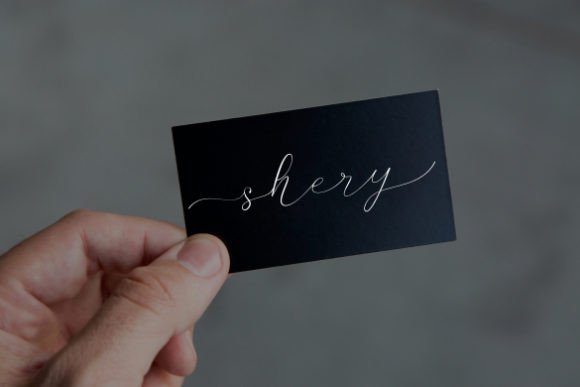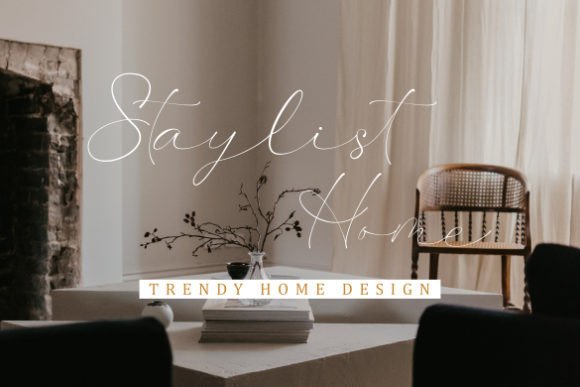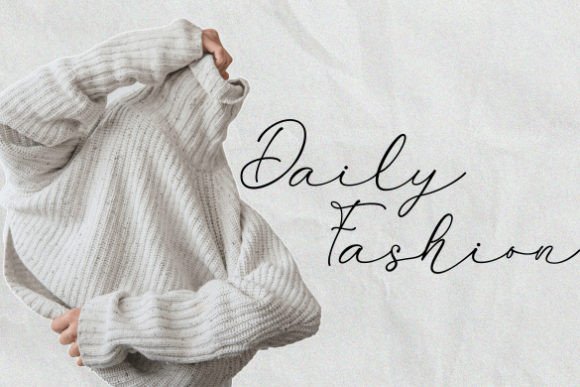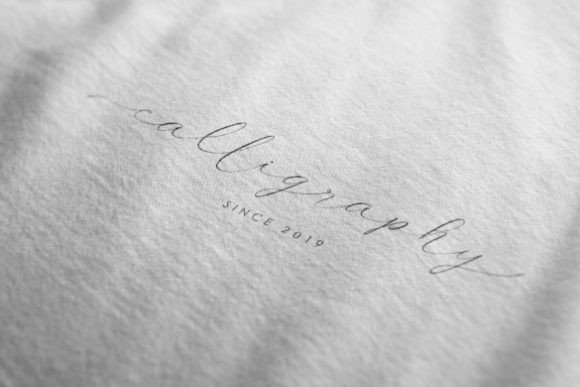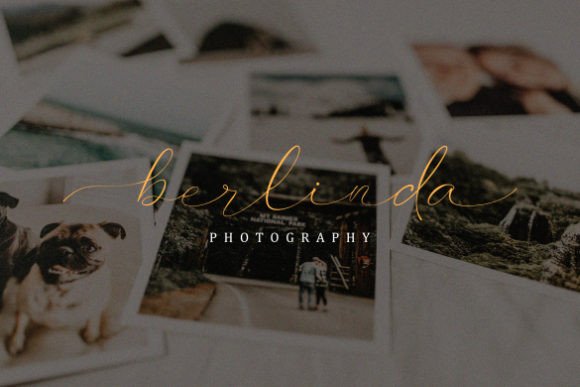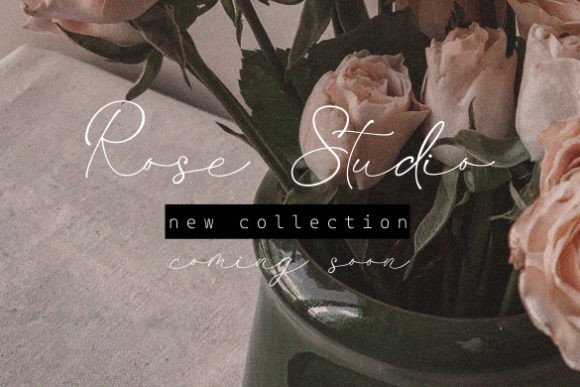
Introducing Amellia Signature Font: Elevate Your Designs with Elegance
In the world of typography, a font can make or break a design. For designers and crafters looking to add a touch of sophistication and elegance to their creations, the Amellia Signature Font is an exceptional choice. This dazzling script font is meticulously crafted with high attention to detail, making it a valuable asset to any font library.
What Makes Amellia Signature Font Stand Out?
Amellia Signature Font is not just another script font; it’s a comprehensive design tool that can elevate any project. Here are some key features that set it apart:
- Neatly Crafted and Highly Detailed: The font’s intricate details and precise craftsmanship ensure that it looks stunning in various applications, from digital media to print.
- Versatility: Regardless of the topic or theme of your project, Amellia Signature Font can adapt and enhance it with its elegant style.
- PUA Encoded: Being PUA (Private Use Area) encoded, this font offers ease of access to all glyphs and swashes. This feature is particularly beneficial for designers who want to experiment with different styles and flourishes without hassle.
Applications of Amellia Signature Font
The versatility of Amellia Signature Font makes it suitable for a wide range of design projects. Here are some areas where this font can make a significant impact:
- Branding and Logos: Create memorable and sophisticated brand identities with custom logos that stand out.
- Stationery: Elevate your business cards, letterheads, and invoices with a touch of elegance.
- Digital Media: Use Amellia Signature Font in social media graphics, blog headers, and website designs to give your digital presence a refined look.
- Crafting and DIY Projects: For crafters, this font can add a professional and aesthetic appeal to product labels, packaging, and promotional materials.
Tips for Maximizing the Potential of Amellia Signature Font
To get the most out of Amellia Signature Font, consider the following tips:
- Pair it Wisely: Combine Amellia Signature Font with complementary fonts to create visual harmony and hierarchy in your designs.
- Experiment with Swashes: Take advantage of the PUA encoding to explore different swashes and glyphs, adding a unique touch to your work.
- Consider Size and Weight: Play with the font sizes and weights to achieve the desired emphasis and flow in your text.
Amellia Signature Font is more than just a script font; it’s a design companion that can transform your projects with its elegance and versatility. Whether you’re a professional designer or a crafting enthusiast, this font offers the tools to create stunning and memorable designs. With its detailed craftsmanship, PUA encoding for easy access to glyphs and swashes, and adaptability across various projects, Amellia Signature Font is poised to become a favorite in your font library.